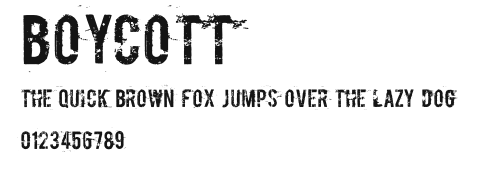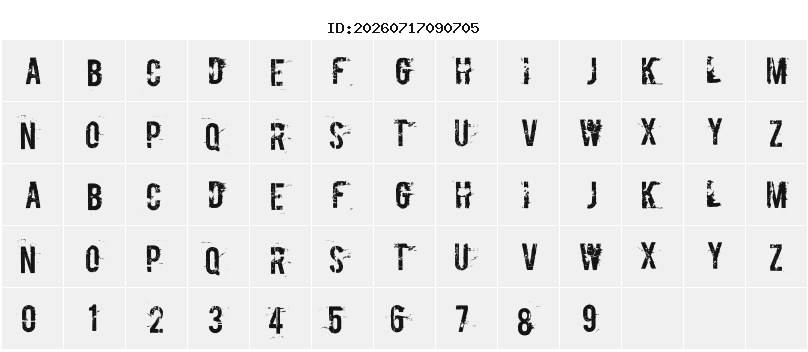
• Font Name: Boycott
• Full Font Name: Boycott
About Boycott.ttf
Boycott.ttf is a modern, elegant sans-serif font designed for ultimate readability and visual harmony. Perfect for branding, headlines, web design, and print materials.